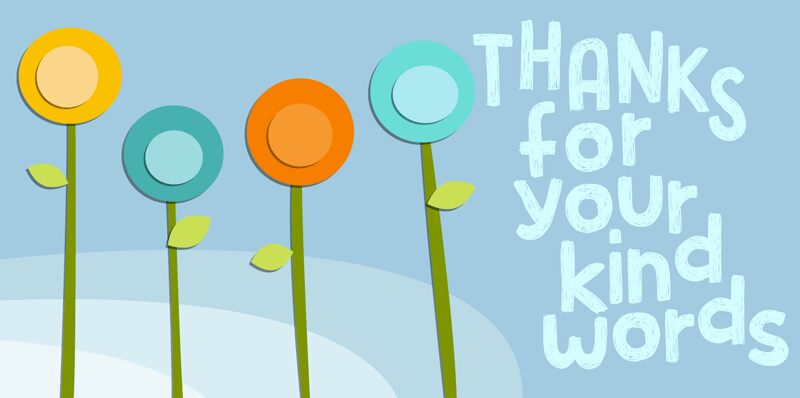
Flapstick DEMO
Flapstick font designed by Pizzadude is a cartoon display font with a lively modern feel and rough texture. Flapstick’s hand-drawn casual tone can be used to take your projects to the next level. It’s a free display font that has very distinctive features with no other typeface looking exactly the same as it.
Many creative projects can benefit from using this typeface, examples are artwork, invitations, gifts cards, packaging design, billboards typography printing advertisements posters and digital content.